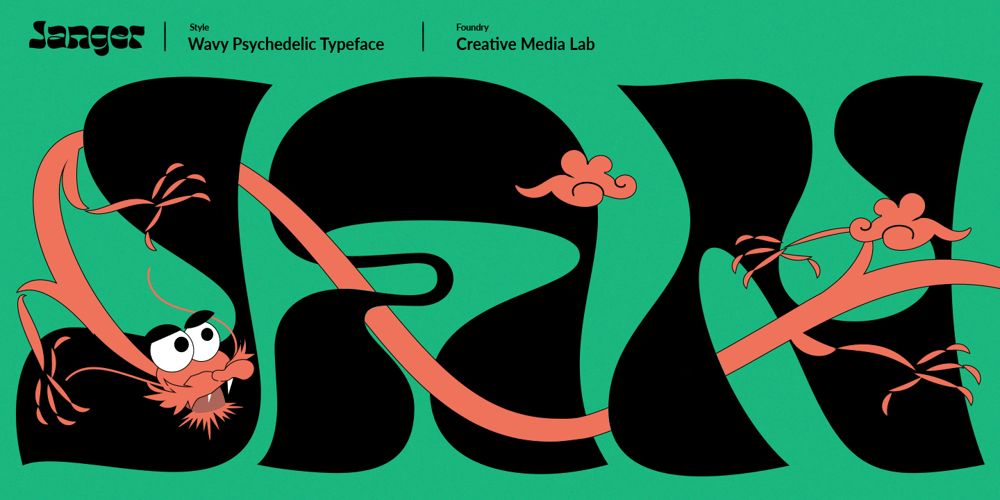
Janger Font Family was designed by Kadek Mahardika and published by Creativemedialab. Janger contains 1 styles and family package options. Introducing Janger, a bold and fun display font.Janger features a reverse contrast style with a retro and psychedelic look that’s simply ideal for design such as posters, t-shirts, branding, heading, titles and many more